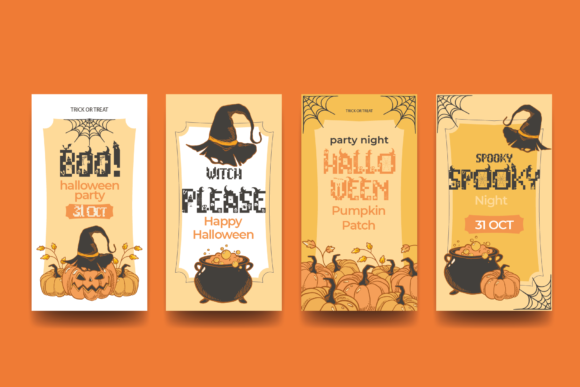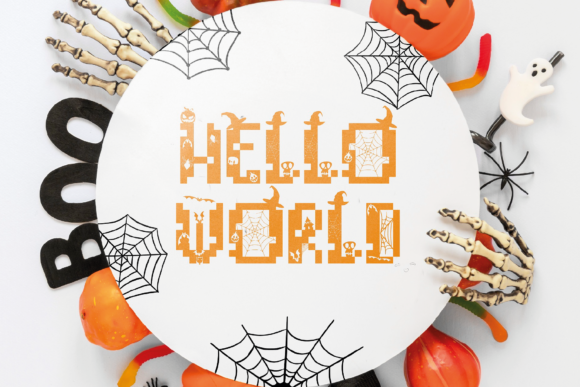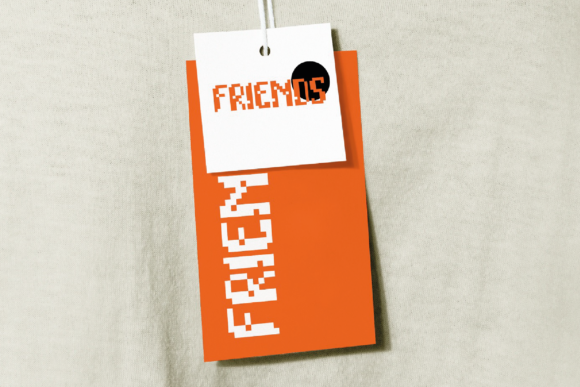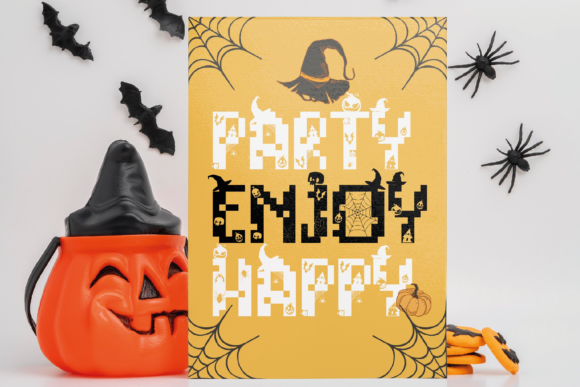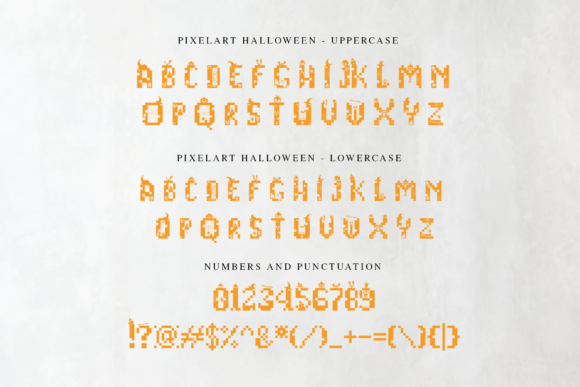
Introduction to Pixelart Halloween Font
Pixelart Halloween is a crafty and distinctive decorative font.
With a combination of pixel-art and scary horror themes, this font has the potential to bring each of your creative ideas to the highest level This font is PUA encoded which means you can access all of the glyphs and swashes with ease.
Key Features of Pixelart Halloween Font
Why Choose Pixelart Halloween Font?